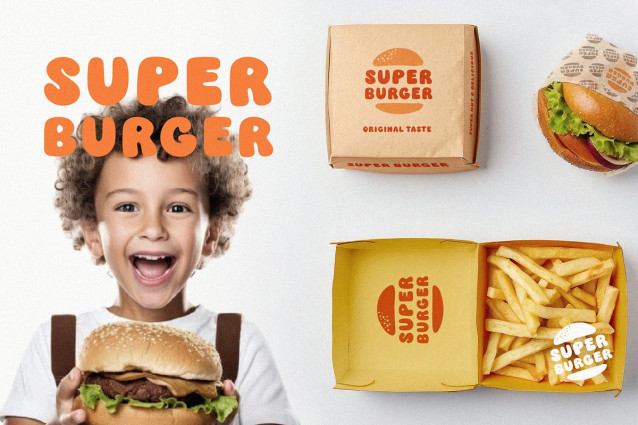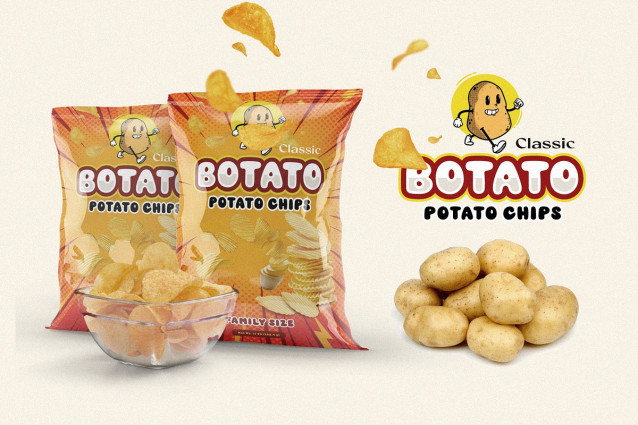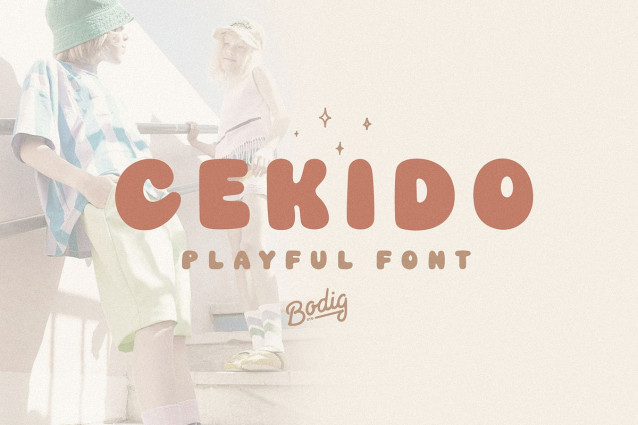
Cekido Font
Cekido Font is playful typeface with cheerful theme for your fun project which puts a smile on your projects and will inspire you to create something fun and memorable. Cekido will help you to create special and touching typographical design for childish projects in happiest day in life, summer vacations, kids moment, happy birthday cards, packaging snack brand, daily quotes etc.